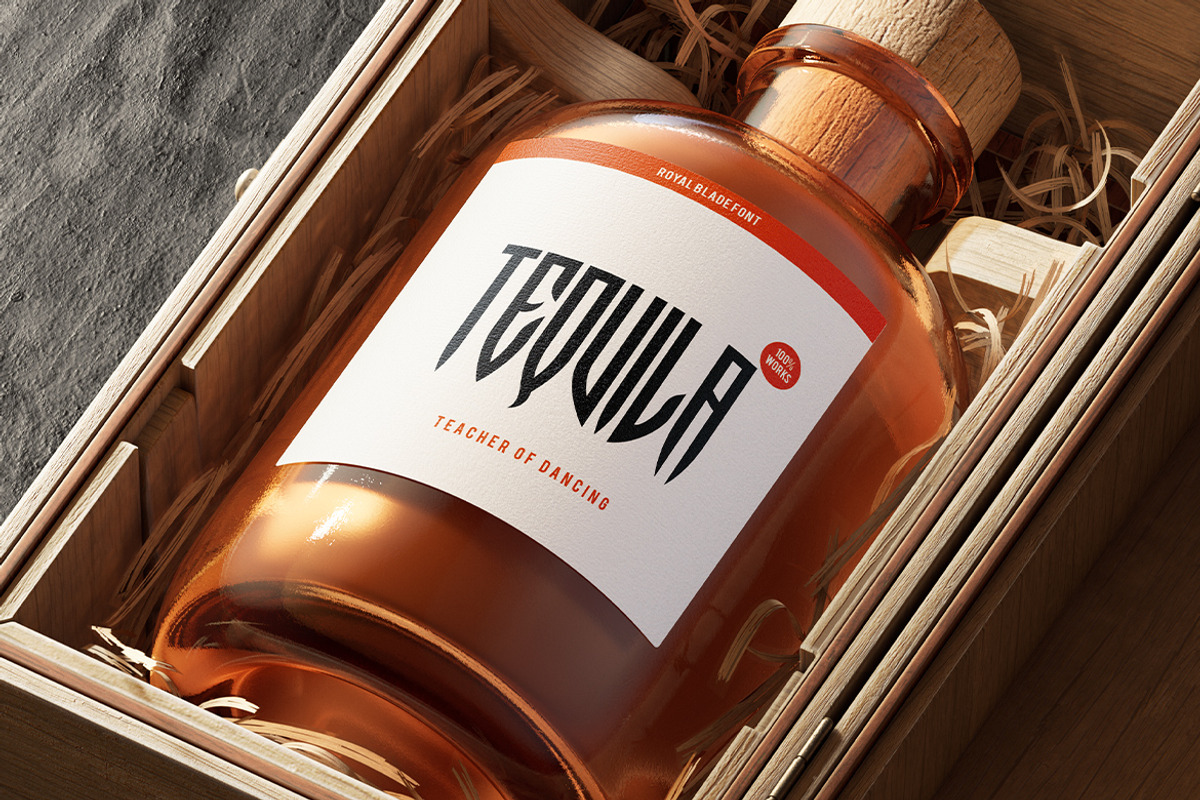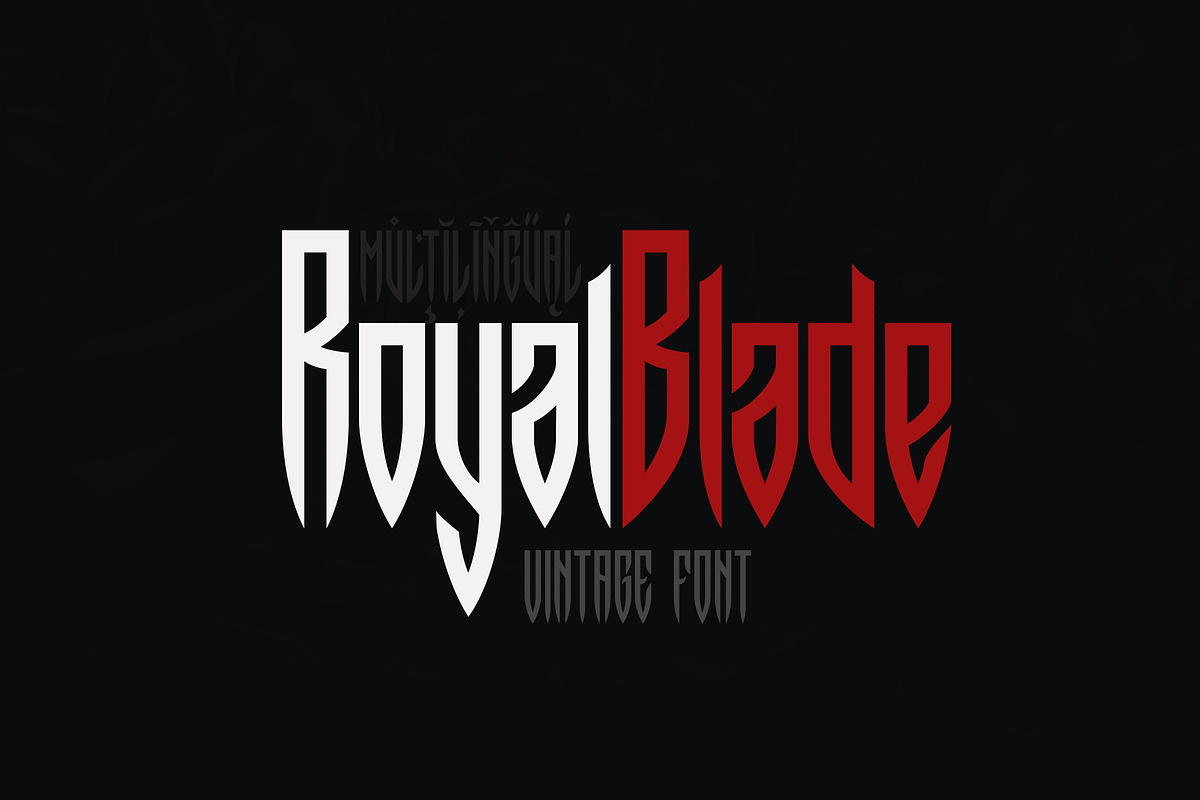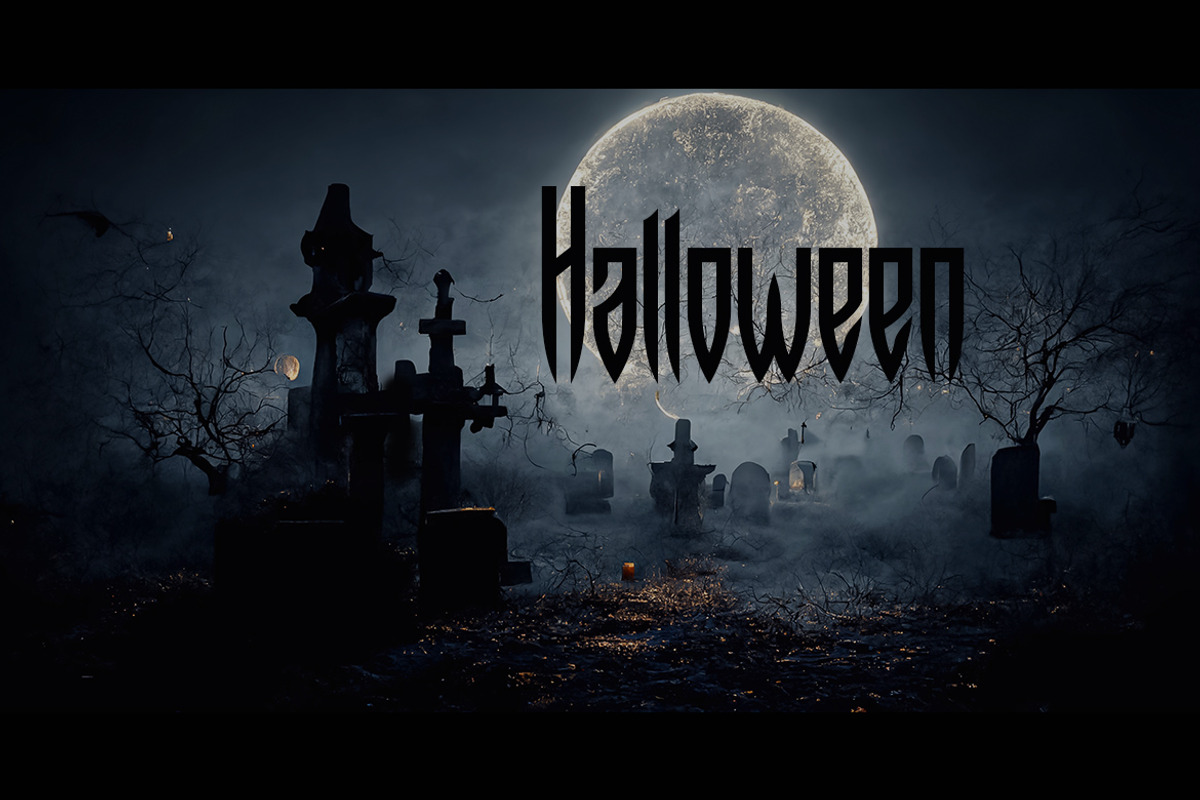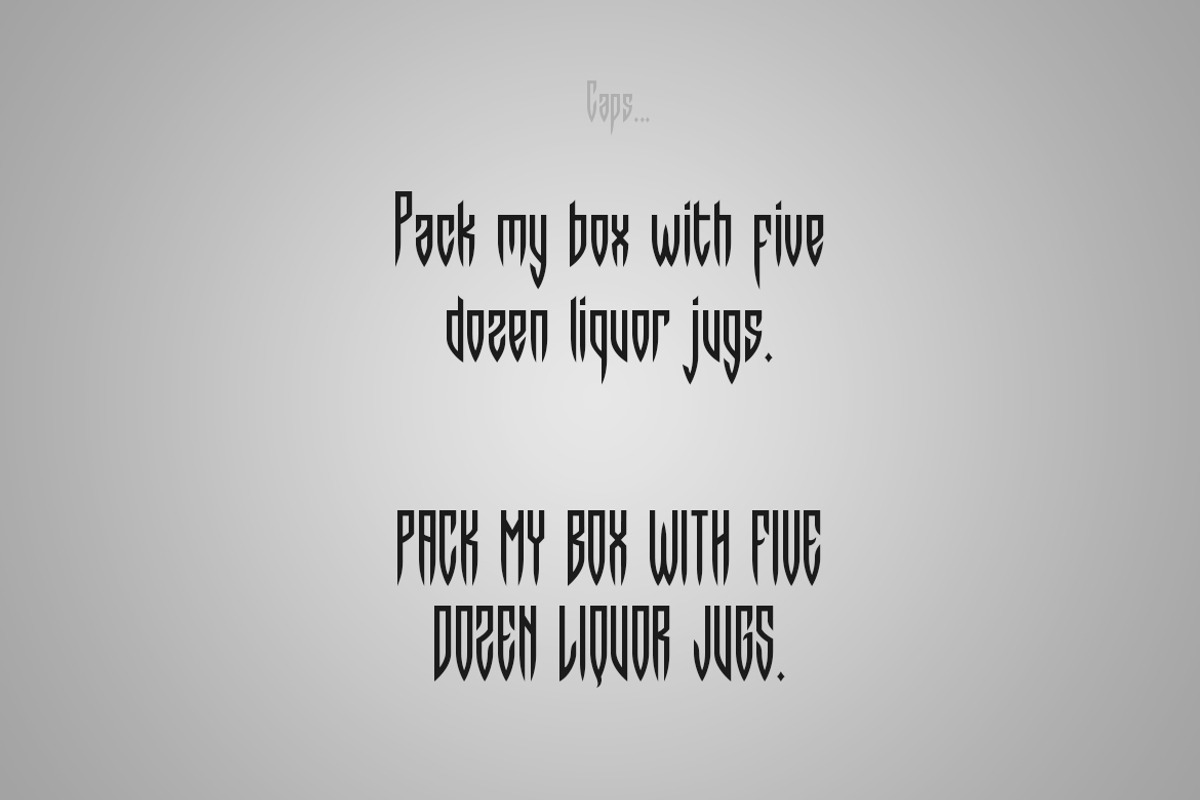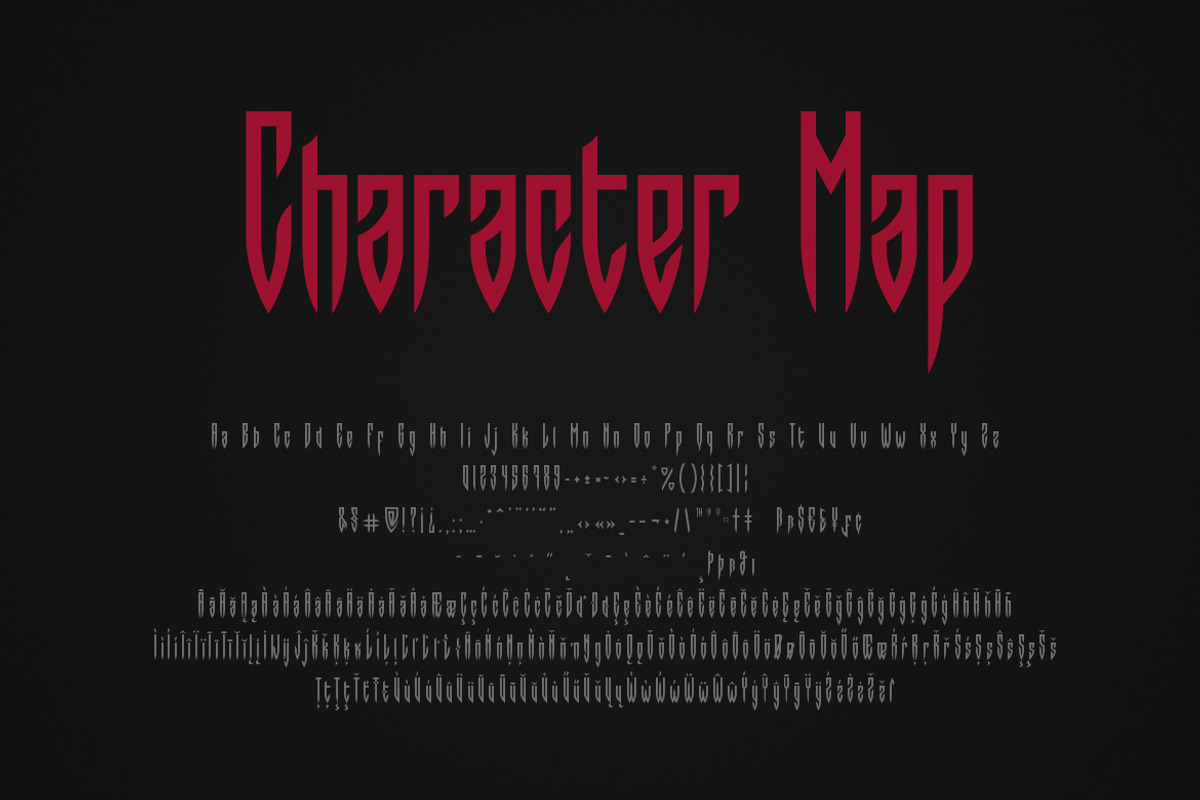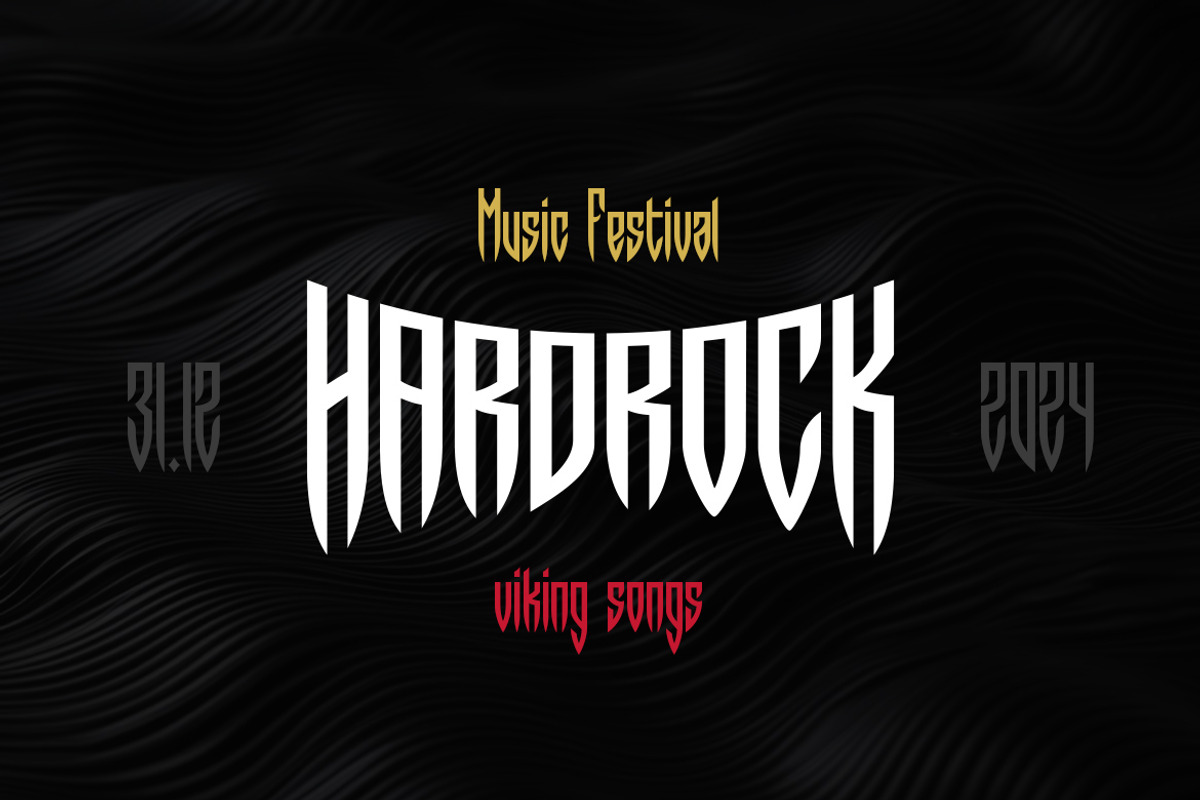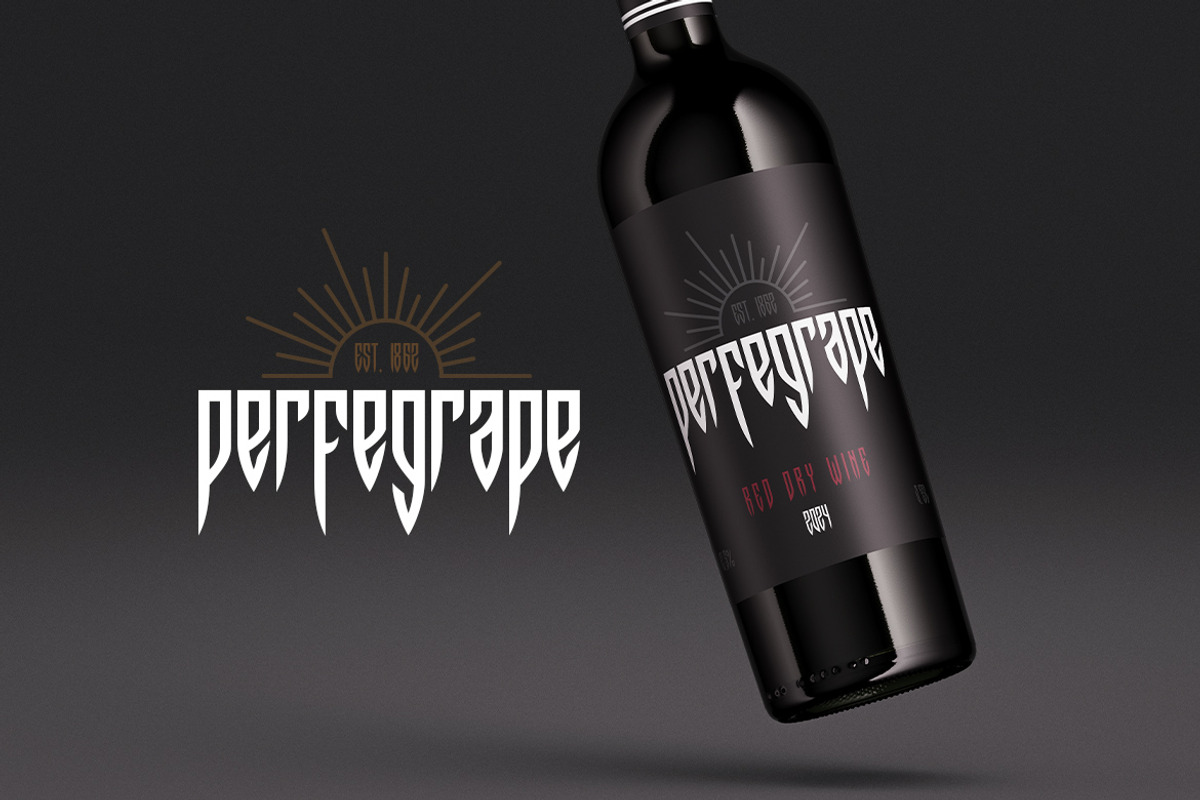
Royal Blade
Royal Blade is an authentic gothic vintage font created for headers and text.
Supported Languages: Bosnian, Catalan, Czech, Danish, German, English, Spanish, Estonian, Finnish, French, Irish, Croatian, Hungarian, Icelandic, Italian, Lithuanian, Latvian, Maltese, Norwegian, Polish, Portuguese, Romanian, Slovak, Slovenian, Albanian, Swedish, Turkish.
Designed for:
- Vintage branding (Clothes, Alcohol, Bikes, Games)
- Horror
- Music branding
- Myth: Vampires, Zombie, Halloween, Werewolves, Magic, Fantasy
- Medieval style
Well use in vintage labels, headers & titles, Posters, Street Signs and other Outdoor, Package Design.